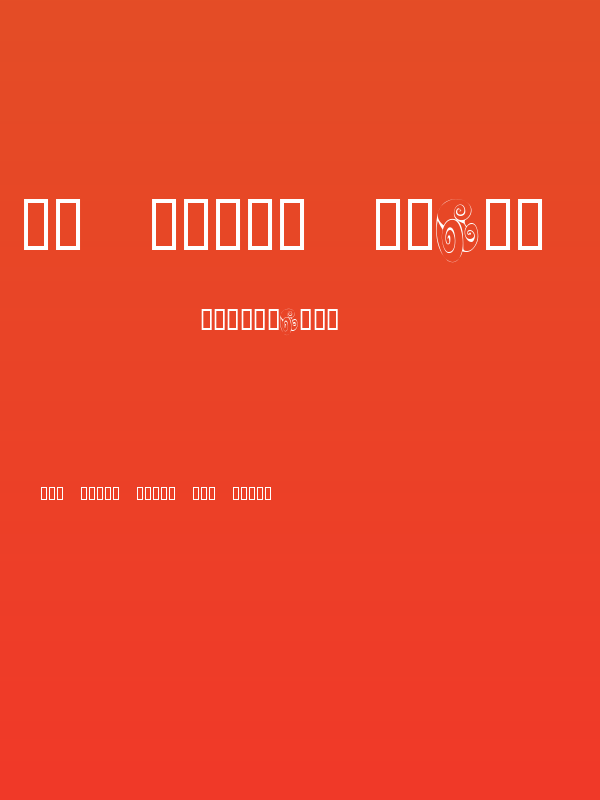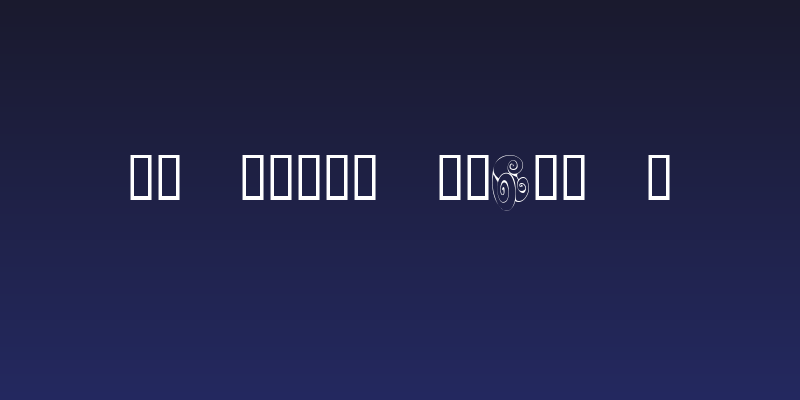
KR Fleur Flair 2 Font
KR Fleur Flair 2 Description
This font features an intricate and decorative design, characterized by swirling, floral motifs that create a whimsical and artistic appearance. Each character is adorned with elaborate curls and loops, giving it a unique, ornamental style. The font's playful and elegant nature makes it stand out, with its bold strokes and high contrast between thick and thin lines. The overall aesthetic is reminiscent of hand-drawn calligraphy, with a modern twist that adds a touch of sophistication and flair. Its distinctive look is perfect for projects that require a touch of creativity and elegance.
Use CaseLogos, Headlines, Artistic projects
Proposed ProjectsIdeal for wedding invitations, greeting cards, artistic posters, and branding that requires a whimsical touch.